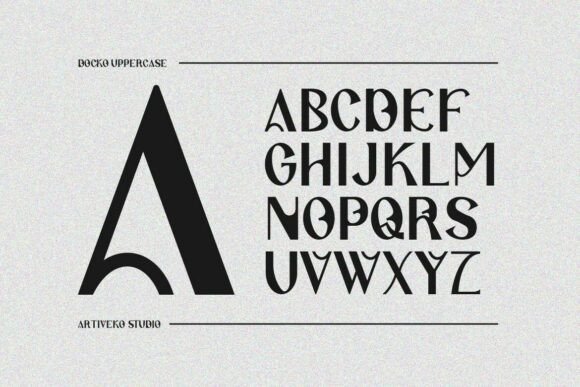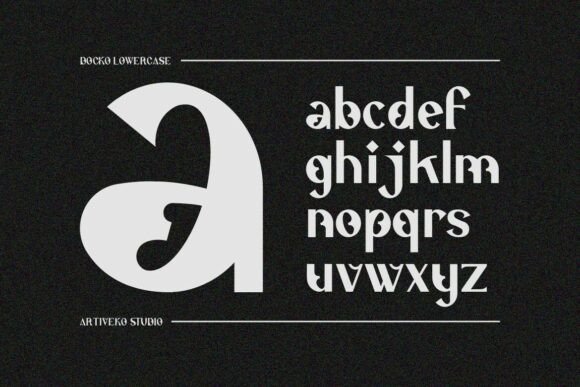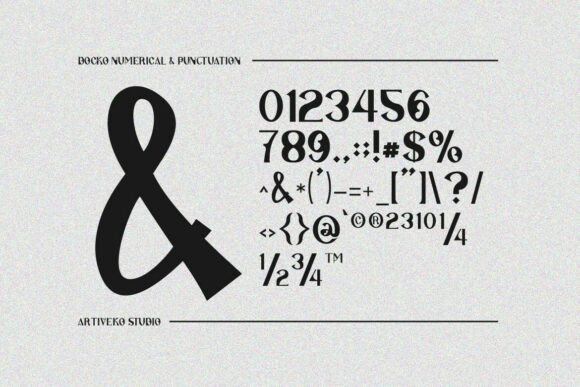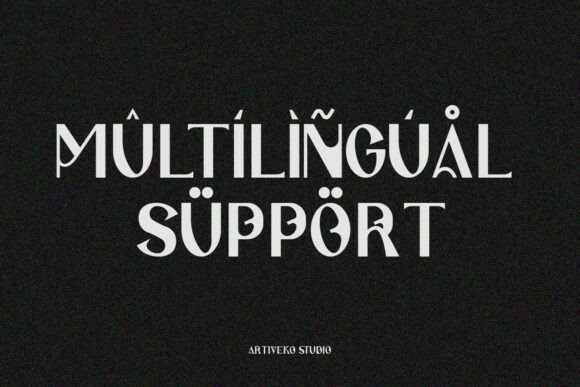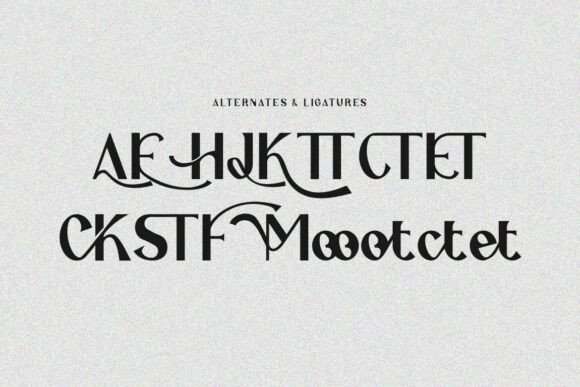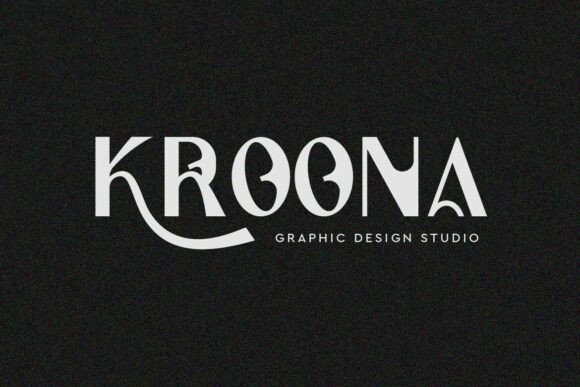
The Ultimate Display Font: Docko
Docko: The Luxury Font You Never Knew You Needed
Docko is a high-end display serif font that exudes sophistication and modern luxury. With its strong contrast, refined curves, and statement-making letterforms, Docko is perfect for premium branding, editorial titles, fashion magazines, packaging, invitations, and upscale marketing visuals. It’s like the little black dress of fonts – it makes everything look effortlessly chic.
My Honest Review of Docko
So, what makes Docko so special? Here are a few things I love about this stunning font:
- ✨ Stunning contrast: Docko’s clever use of contrast creates a beautiful visual hierarchy, making it perfect for headlines and titles.
- ✅ Refined curves: The font’s smooth, elegant curves add a touch of sophistication to any design.
- 🔥 Statement-making letterforms: Docko’s unique letterforms are sure to turn heads and make your design stand out.
Of course, no font is perfect, and Docko has a few small quirks:
- 🤔 Limited use in body text: While Docko is amazing for headlines, it’s not the best choice for body text due to its high contrast and refined curves.
- ⚠️ Requires careful kerning: As with any font, Docko requires some kerning TLC to ensure it looks its best.
- Experiment with OpenType features, such as stylistic alternates, to add visual interest.
- Explore the font’s glyphs and OpenType features, such as ligatures and swashes, to add a touch of elegance.
- Use the font’s built-in stylistic alternates to add visual interest.
The Story Behind Docko
Docko was designed by a team of typographers who wanted to create a font that embodied the essence of modern luxury. Inspired by the elegance of high-end fashion and the sophistication of luxury brands, Docko was crafted to make a statement. Whether you’re a designer, craftsperson, or creative hobbyist, Docko is sure to elevate your design game.
| What is Docko best used for? | Docko is perfect for premium branding, editorial titles, fashion magazines, packaging, invitations, and upscale marketing visuals. |
| Can I use Docko for body text? | While Docko is amazing for headlines, it’s not the best choice for body text due to its high contrast and refined curves. |
| Is Docko a versatile font? | Yes, Docko has a range of OpenType features, glyphs, and stylistic alternates, making it a versatile font for various design applications. |